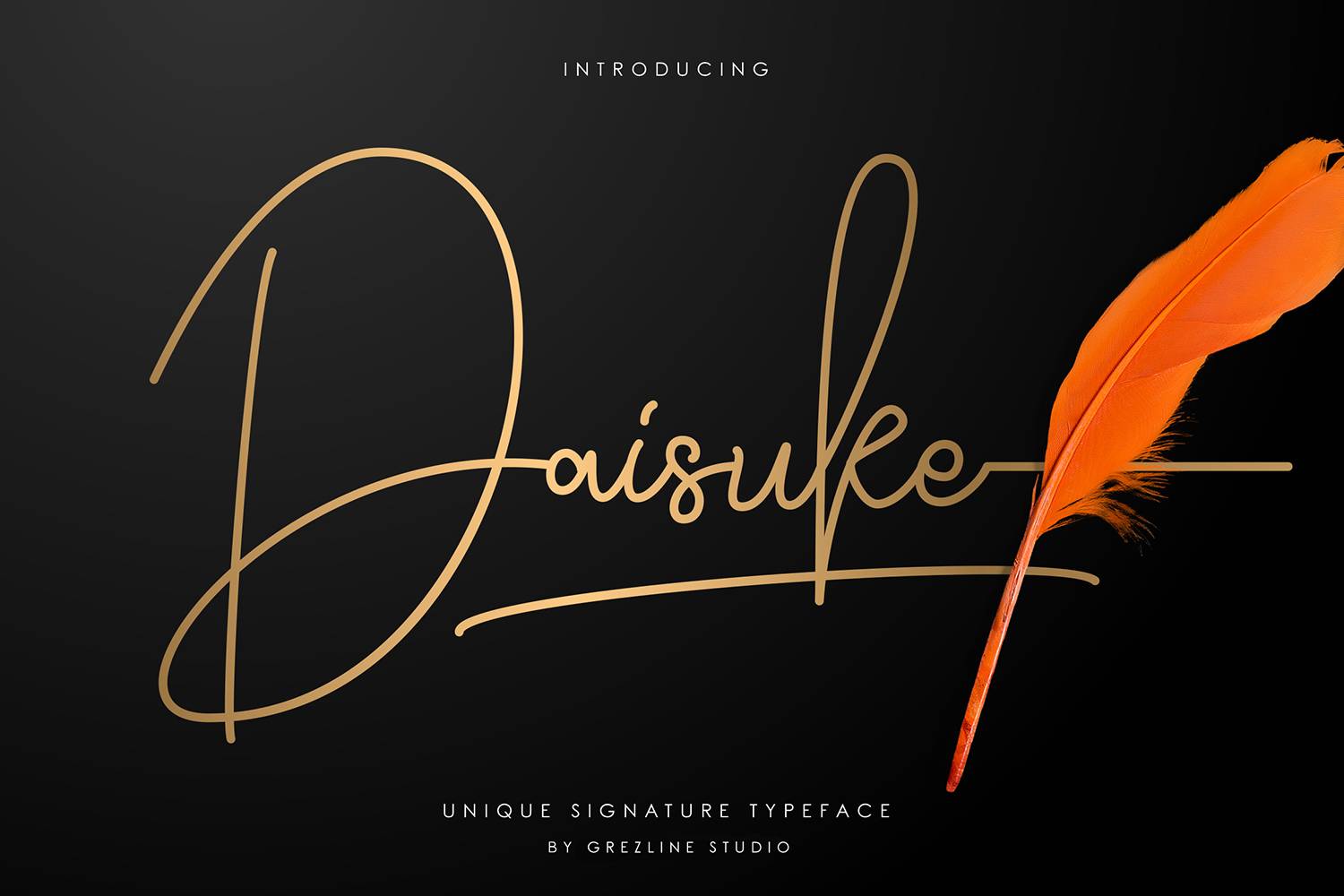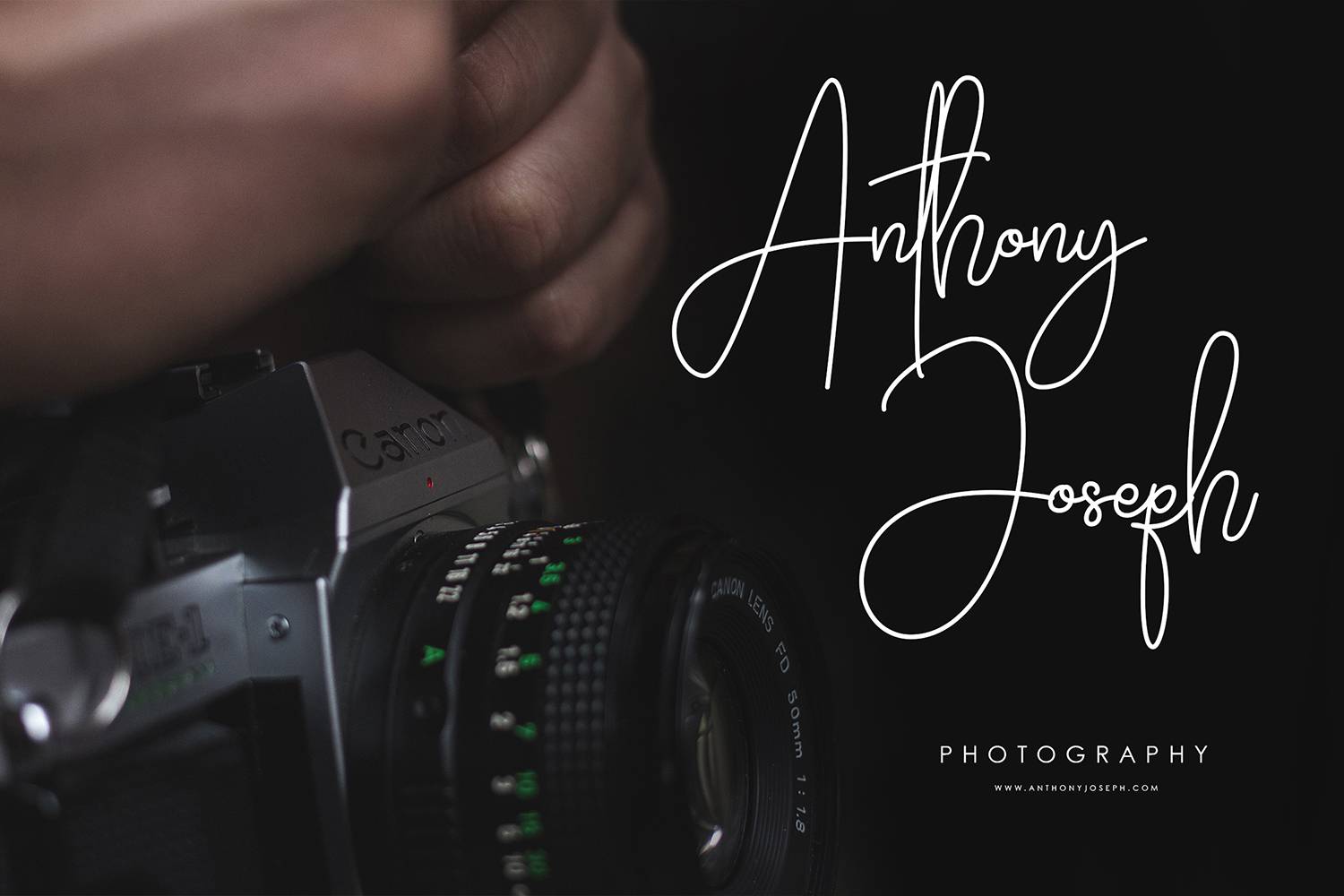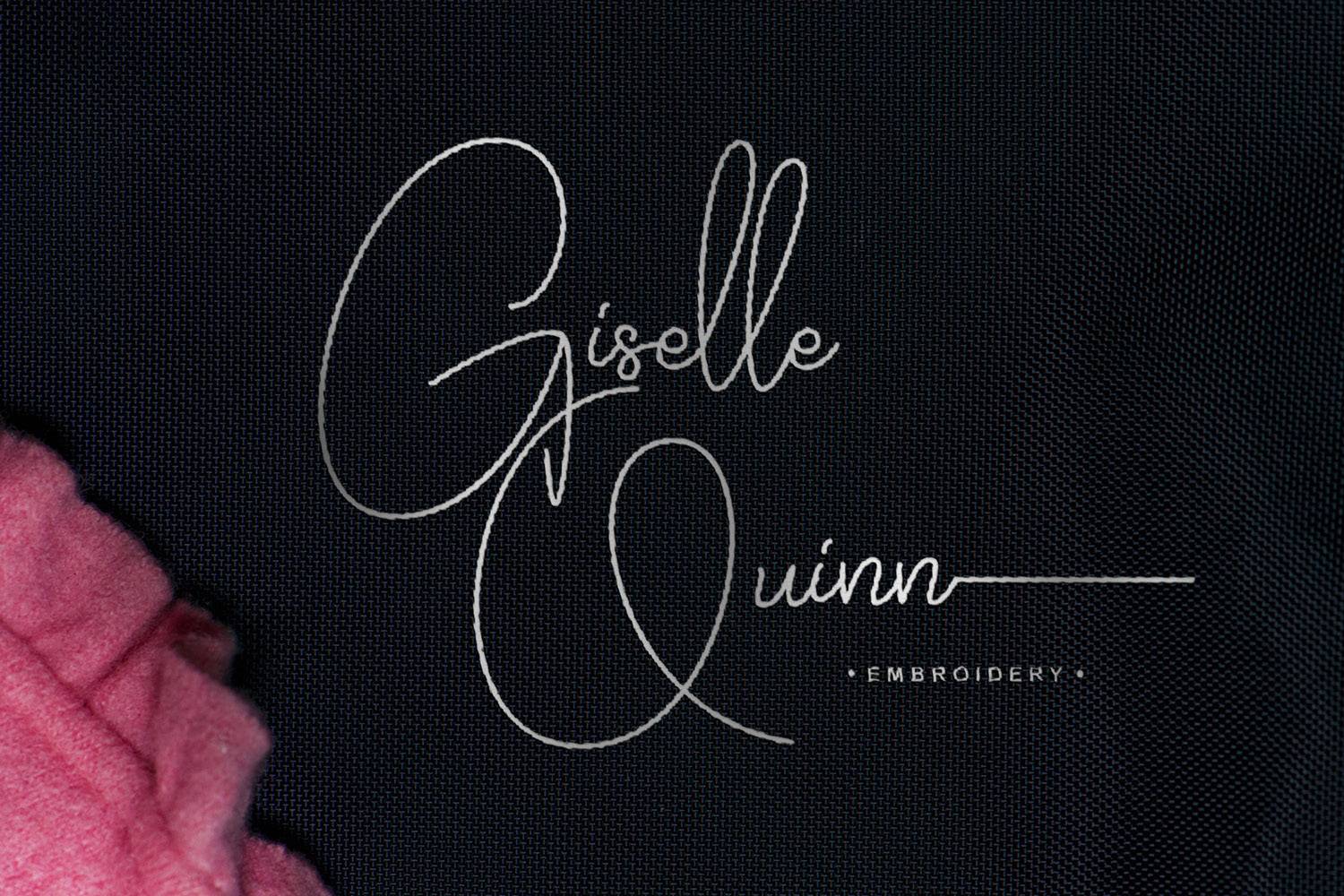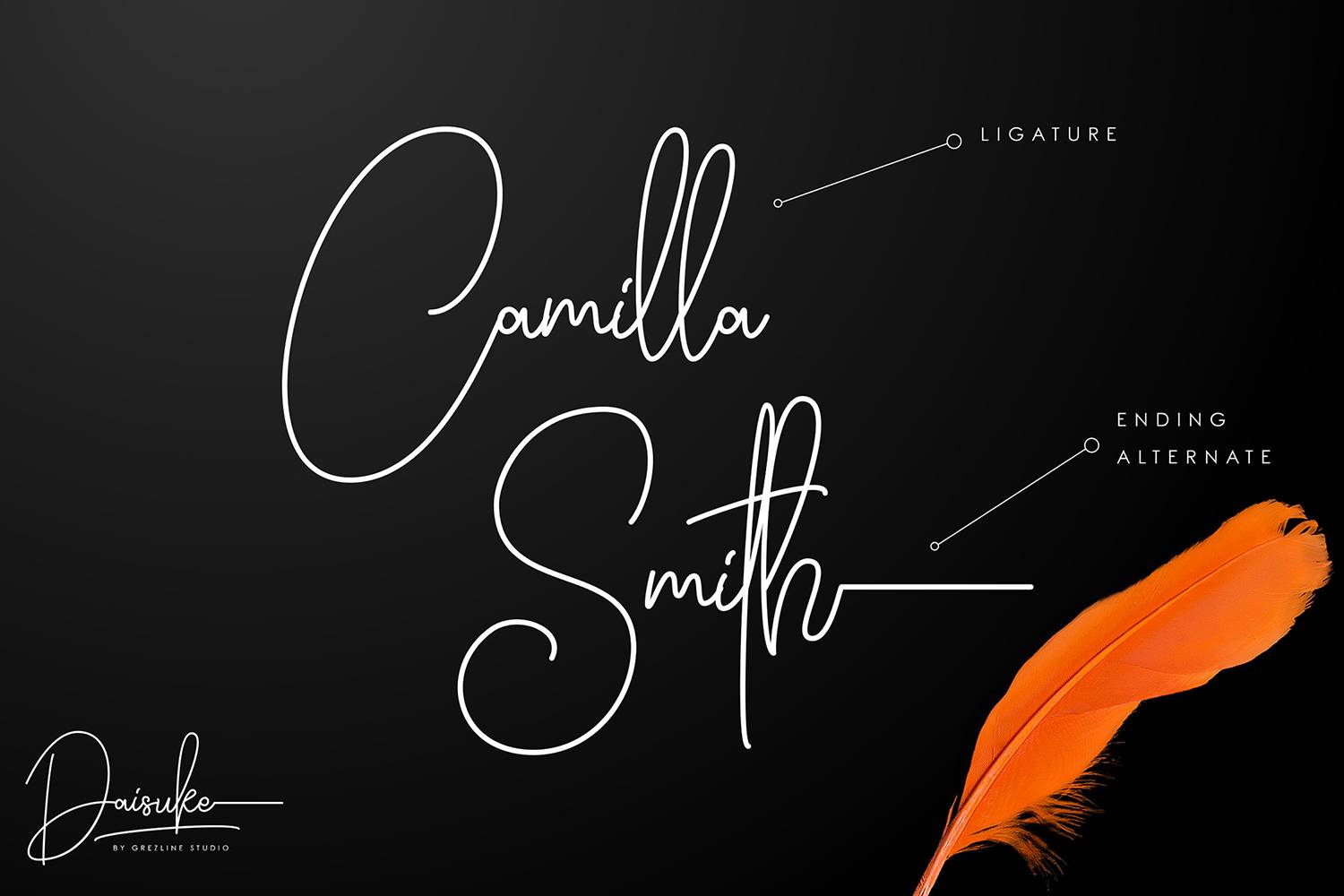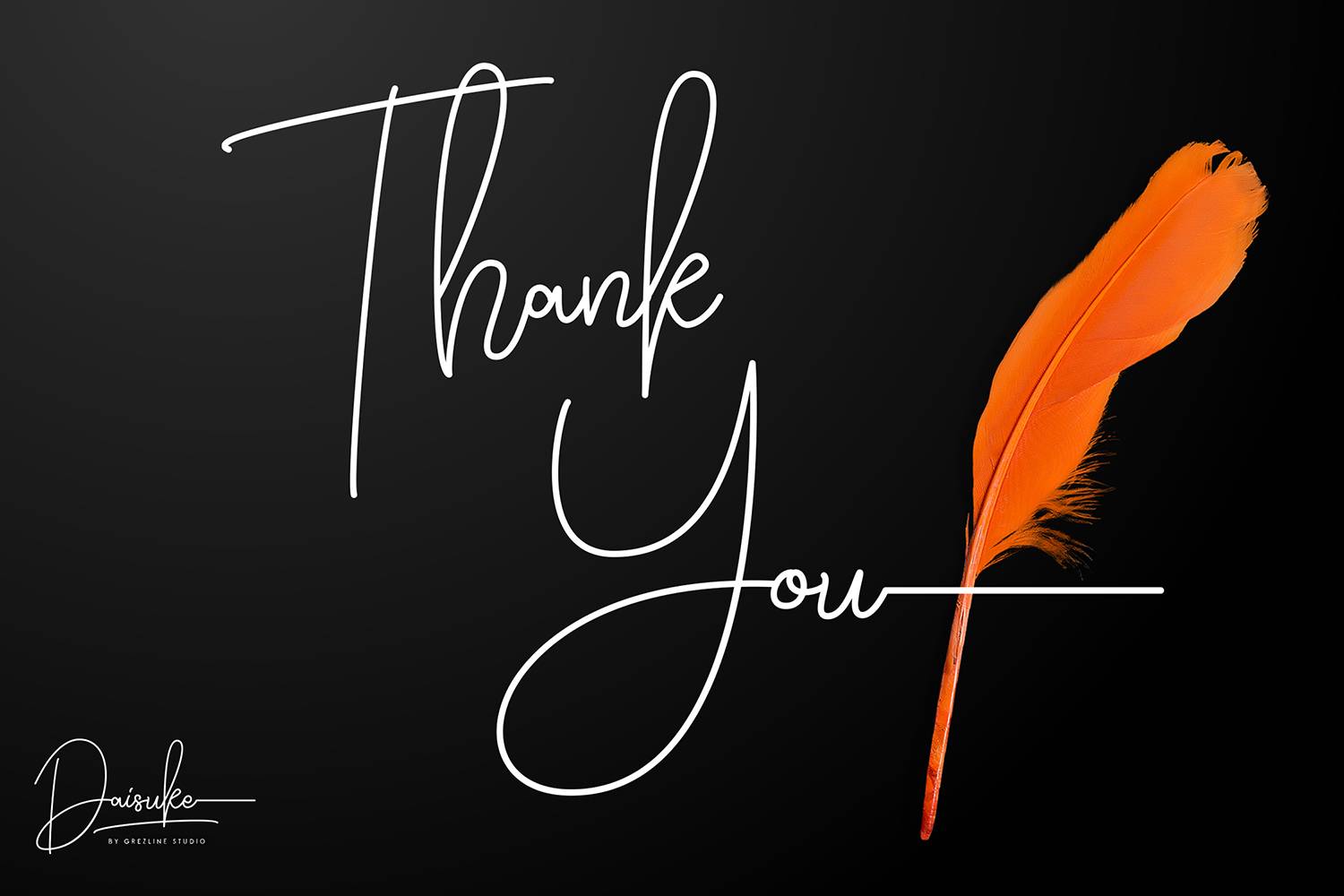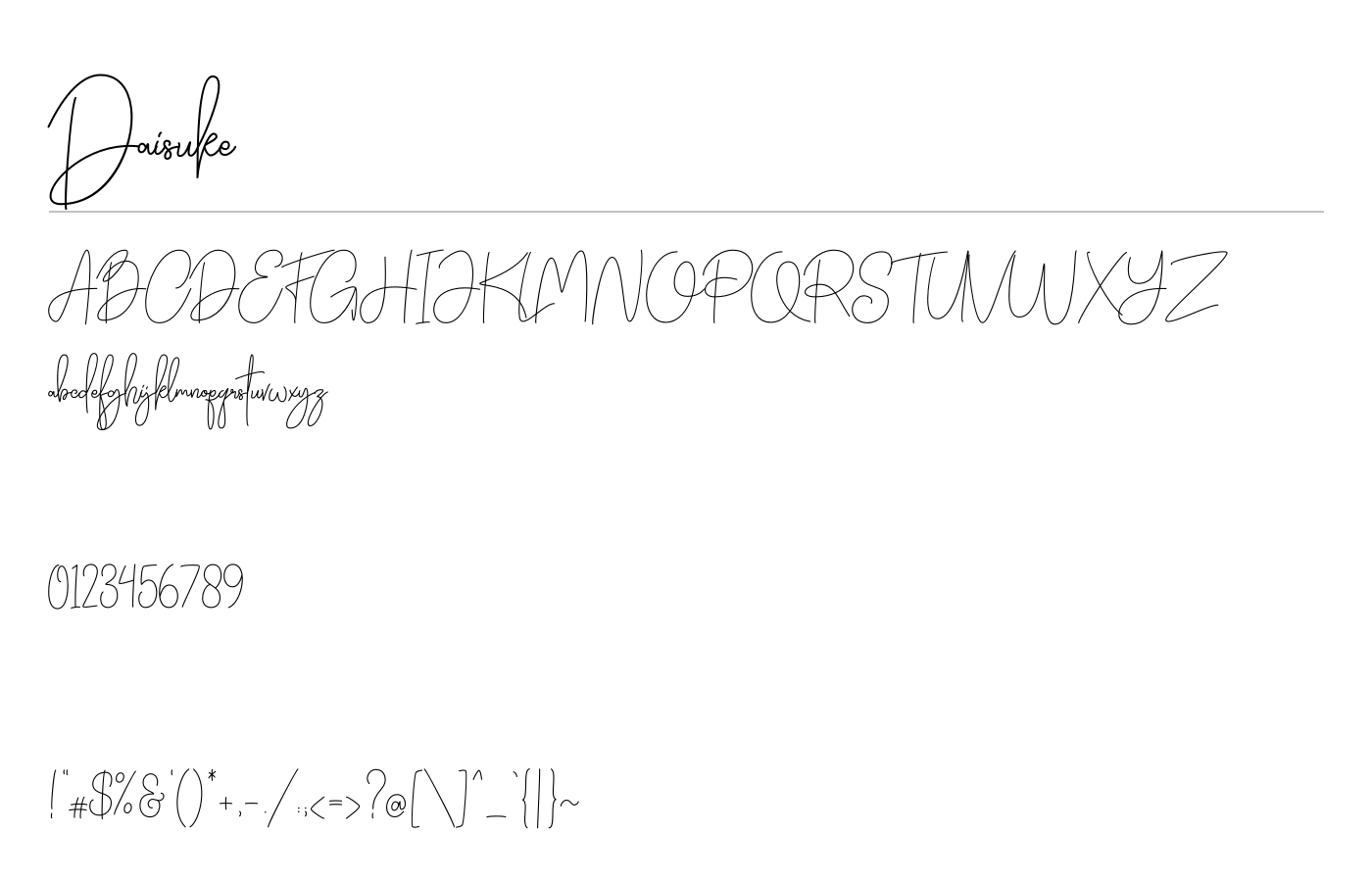
Daisuke Font is an elegant, thin script font with a delicate, hand-drawn feel that features tall, narrow letterforms and graceful loops. Its light weight and flowing strokes give it a refined, personal touch, making it perfect for invitations, branding, and creative projects that seek a sophisticated yet approachable style. This font shines in designs where a handwritten, artistic vibe is desired without compromising readability.
Daisuke Font
About Daisuke Font
| Font family | Daisuke Font |
| Designer | Akhmad Reza Fauzi |